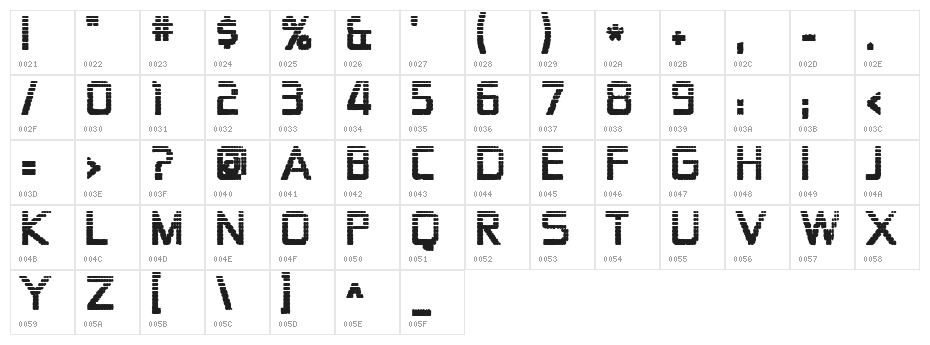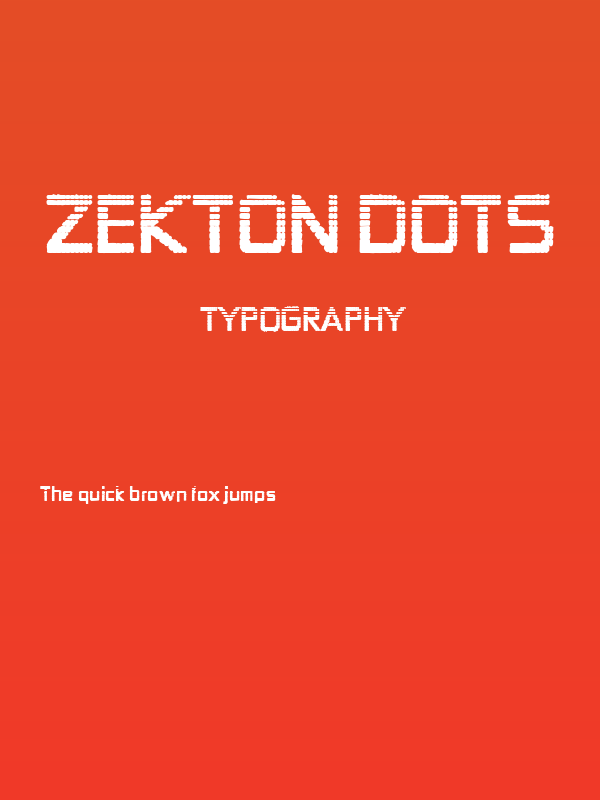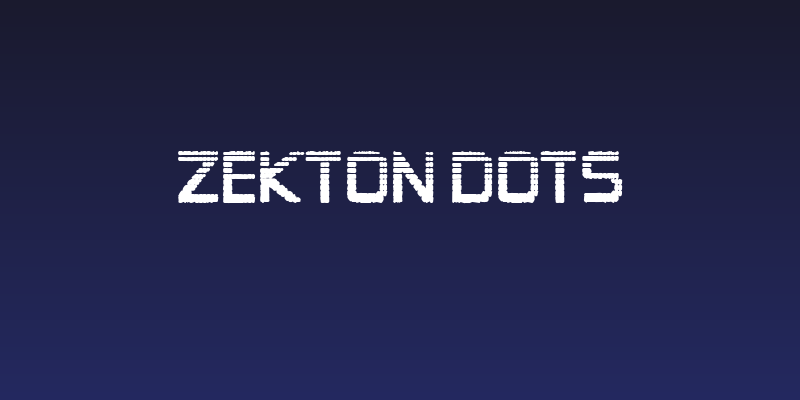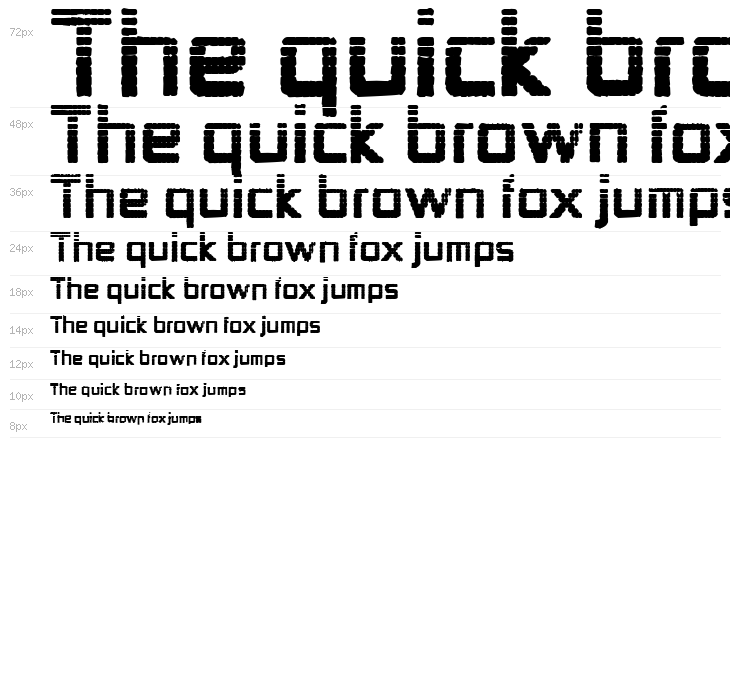
Zekton Dots Font
Zekton Dots Description
This font features a unique dotted pattern that forms each character, creating a digital and futuristic aesthetic. The uppercase and lowercase letters maintain a consistent style, with rounded edges and a uniform dot size that gives the font a cohesive look. The numbers and special characters follow the same design principle, ensuring a seamless integration across all glyphs. This font's distinct appearance makes it ideal for projects that require a modern, tech-inspired feel. The spacing between characters is balanced, allowing for readability while maintaining its decorative appeal.
Use CaseLogos, Headlines, Digital displays
Proposed ProjectsIdeal for digital displays, tech-themed posters, video game graphics, and modern branding.